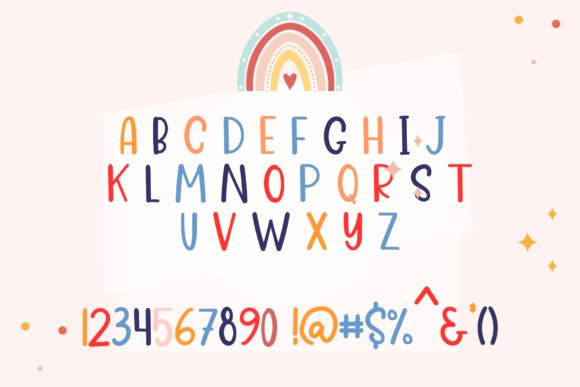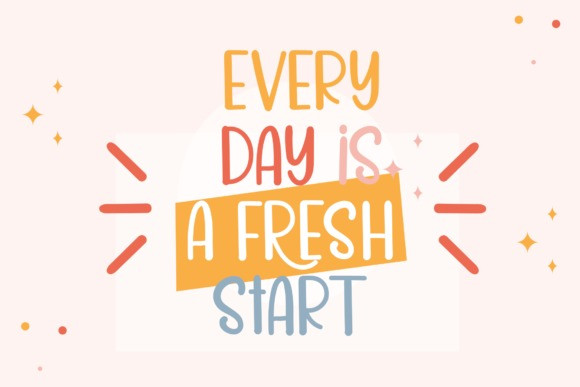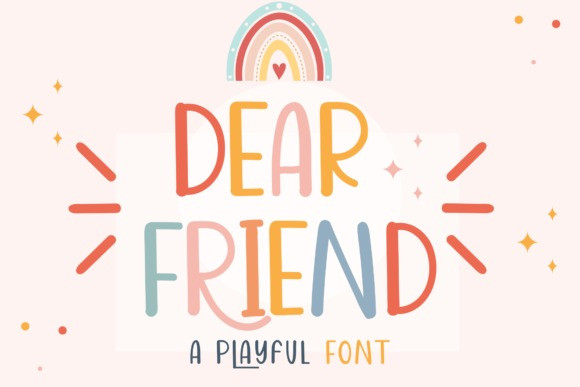
Dear Friend Font
Dear Friend Display Font is a playful and cute handwritten font. It is perfect for children themed designs, especially when combined with bright colors.